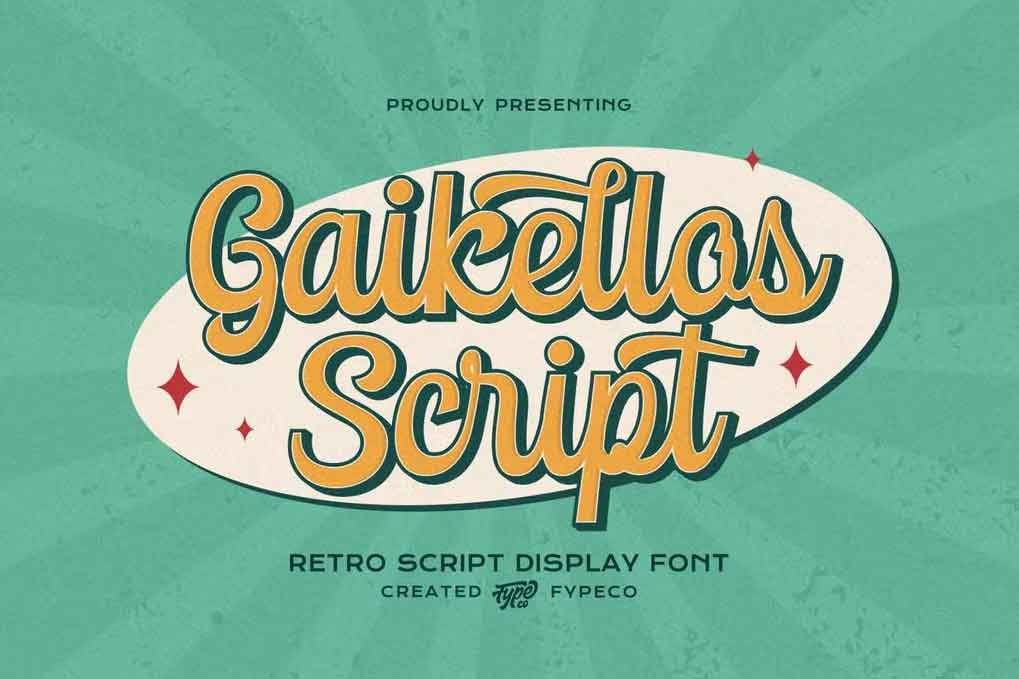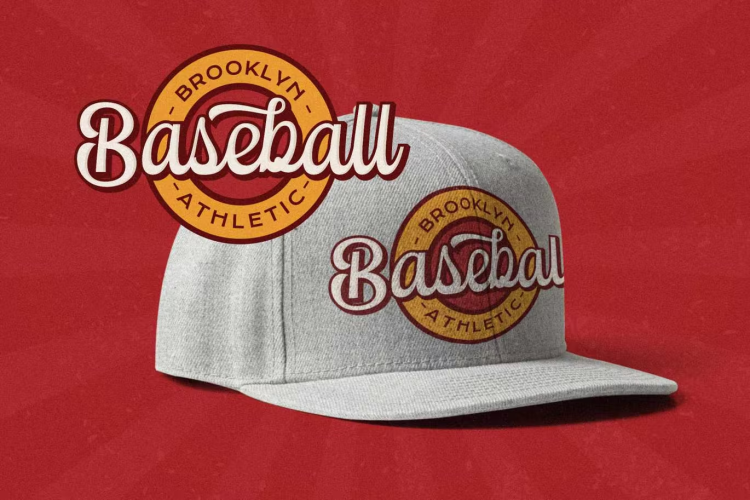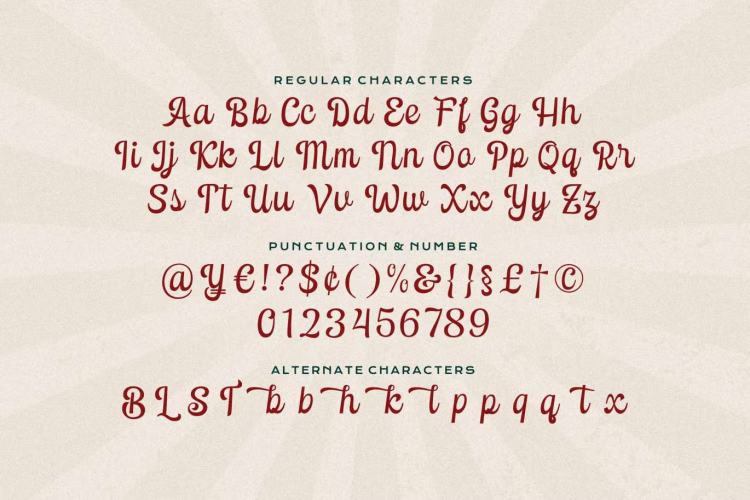
Gaikellos Script Font
Gaikellos Script is a script display font with a charming touch of retro style. OpenType features with Stylistic Alternates in some characters that allows you to mix and match pairs of letters to fit your design. This handmade font is wonderful to use in logos, designs, labels, clothes or anything you want.
Font Features -Uppercase -Lowercase -Alternatives -Ligatures -Numerals & Punctuation -Multilingual Support
Gaikellos Script Font is a Script And Handwritten font that brings a professional and versatile look to your projects. Gaikellos Script is a script display font with a charming touch of retro style.